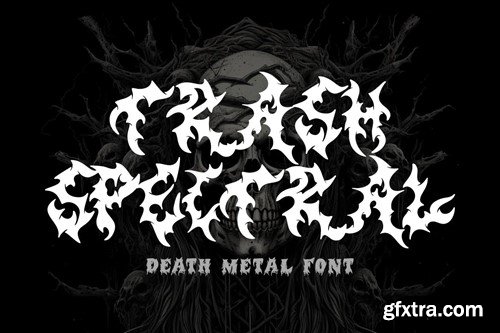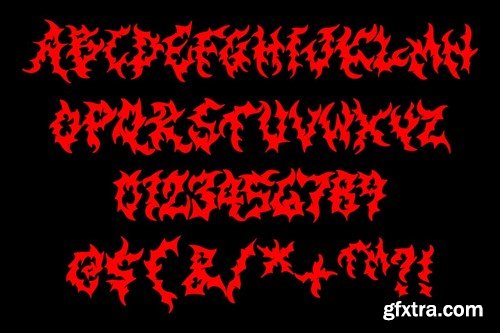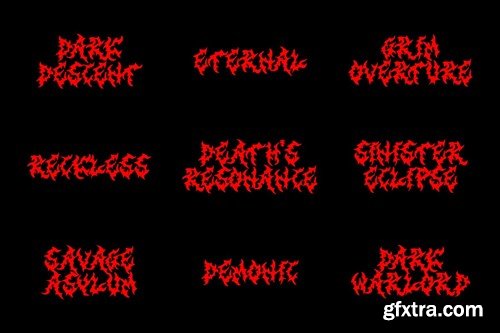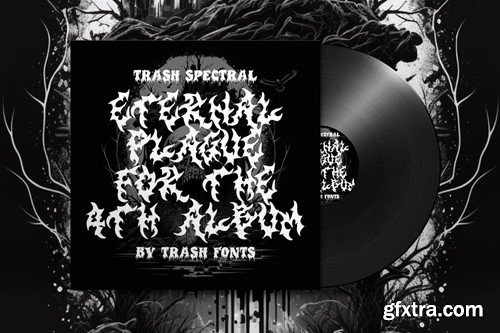
废弃光谱 - 死金属字体 6VZYV55
Trash Spectral - Death Metal Font 6VZYV55
Trash Spectral - Death Metal Font
Trash Spectral by Trash Fonts
Trash Spectral – Your Death Metal Font: Unleash intense, dark power in your designs. Perfect for merchandise, logos, posters, and more. Make an unforgettable impact with Trash Spectral.
• Features: Uppercase, Lowercase, Numeral, Simple Punctuation & Multilingual.